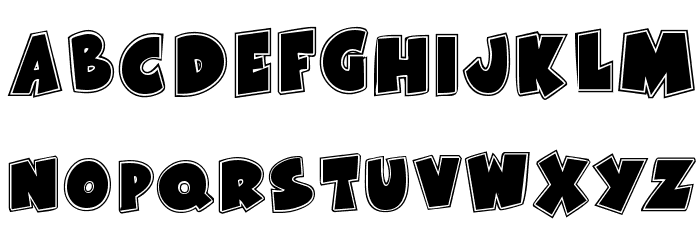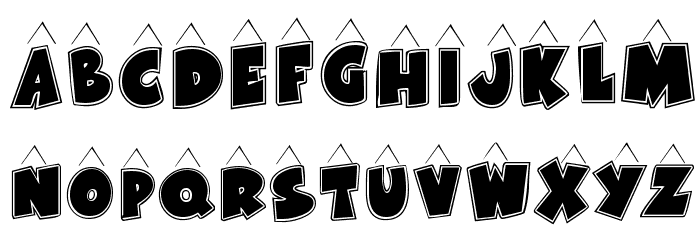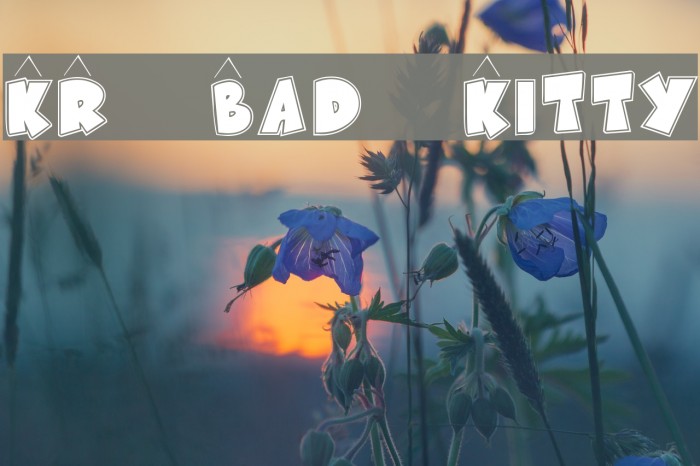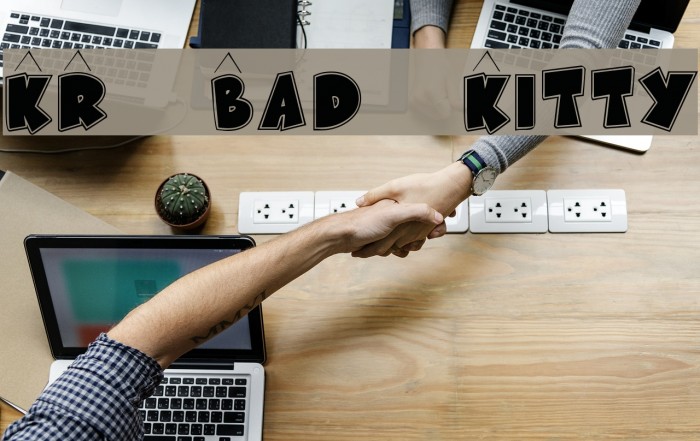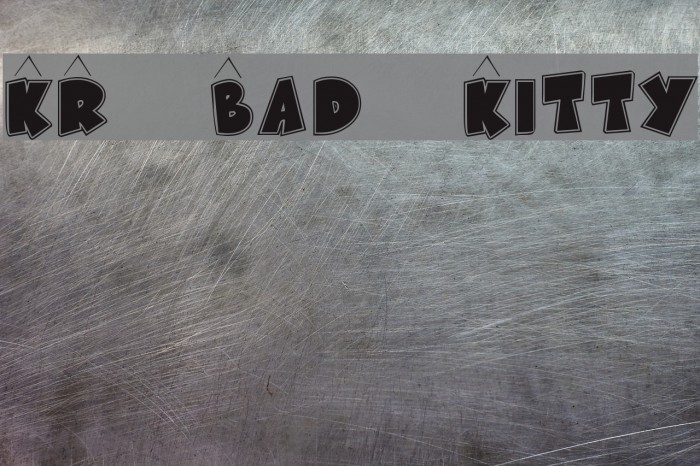
KR Bad Kitty Font
This playful and bold font features uppercase letters with a unique, cartoonish style. Each character is outlined with a thick black border, giving it a strong presence. The letters are slightly tilted, adding a dynamic and whimsical touch. The design includes small triangular accents at the top of each letter, reminiscent of cat ears, enhancing its playful theme. This font is perfect for projects that require a fun and eye-catching typeface, such as children's books, party invitations, or playful branding. The boldness of the letters ensures high visibility and impact, making it suitable for headlines and titles.
A bold, playful font with cartoonish, cat-themed accents.
- Proposed Projects: Children's books, party invitations, playful branding, headlines.
- Overall Style: Playful, Cartoonish